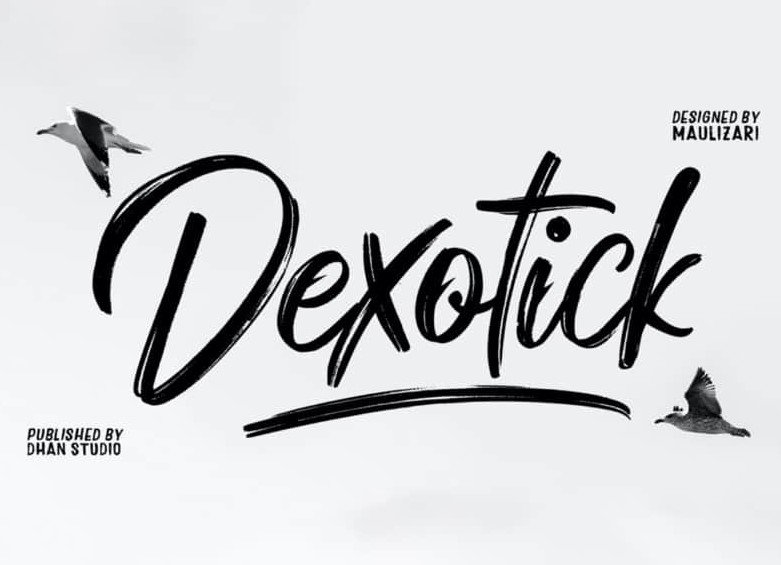
You can download the impressive Dexotick Brush Font typeface from this fantastic resource, which offers outstanding features. It includes additional swashes and an excellent texture, ideal for various professional projects.
If you want to make some suitable projects that can easily be seen in small or large, then this font is perfectly fine for you. It works more perfectly when you utilized this font with the combination of holland handwritting font as a pairing.